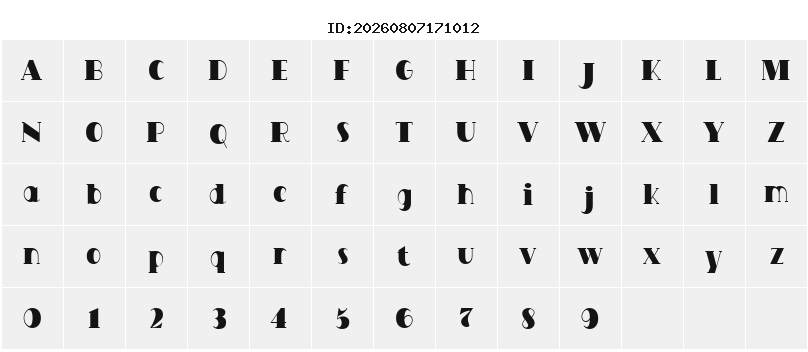
• Font Name: OakParkBlvd
• Font ID: Altsys Fontographer 4.0 OakParkBlvd
• Full Font Name: OakParkBlvd
• Version: Altsys Fontographer 4.0 10/22/93
• PostScript Name: OakParkBlvd
• Character Count: 238
About OakParkBlvd.ttf
OakParkBlvd.ttf is a modern, elegant sans-serif font designed for ultimate readability and visual harmony. Perfect for branding, headlines, web design, and print materials.